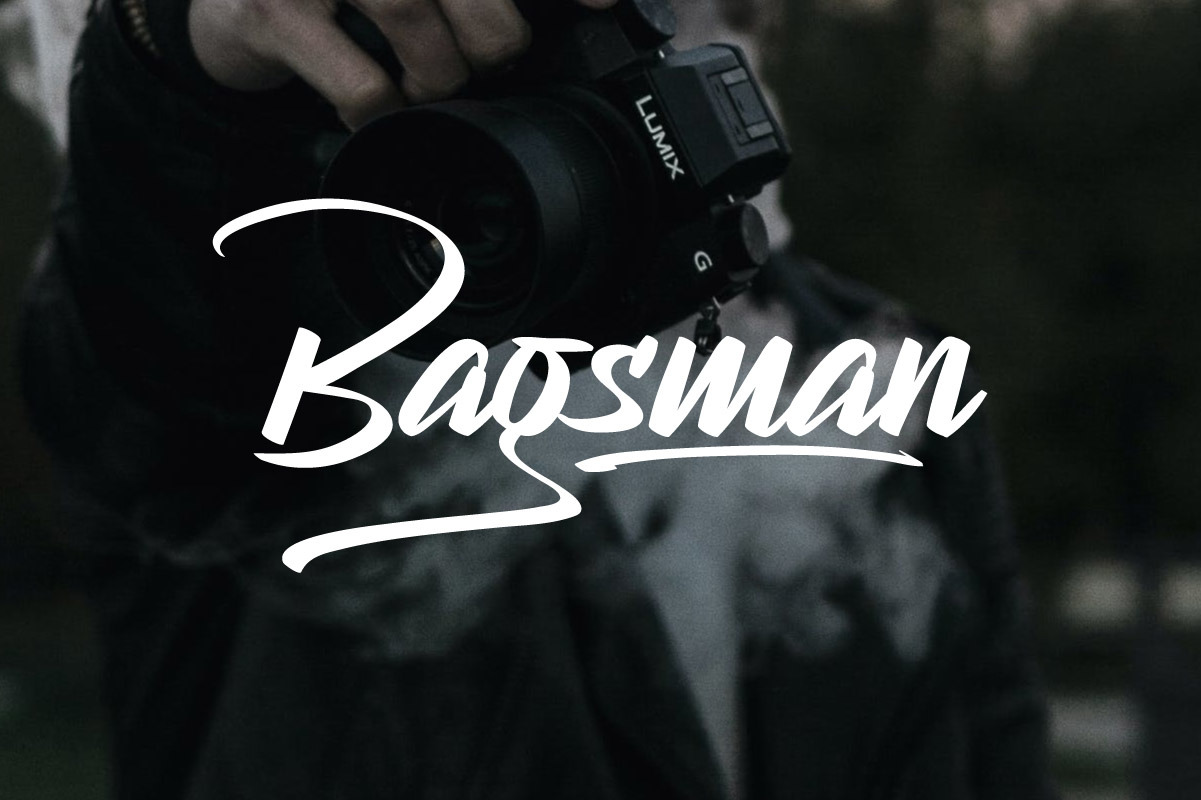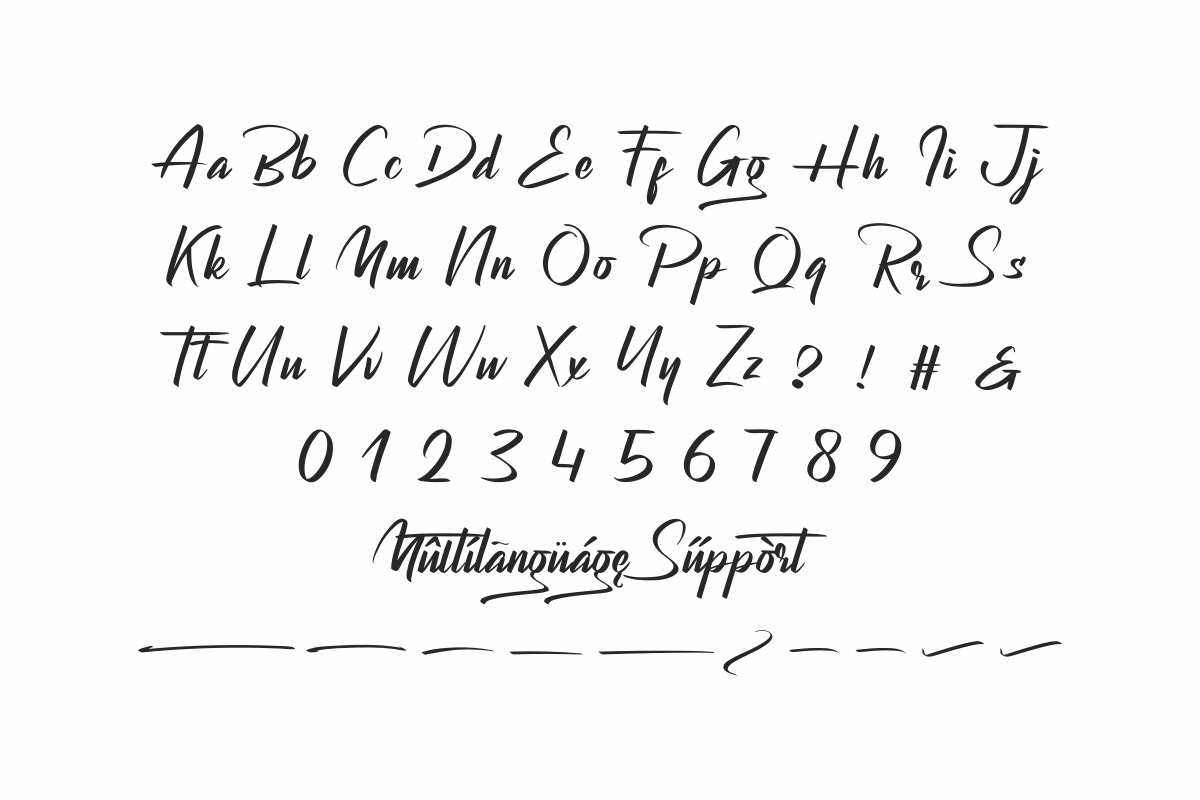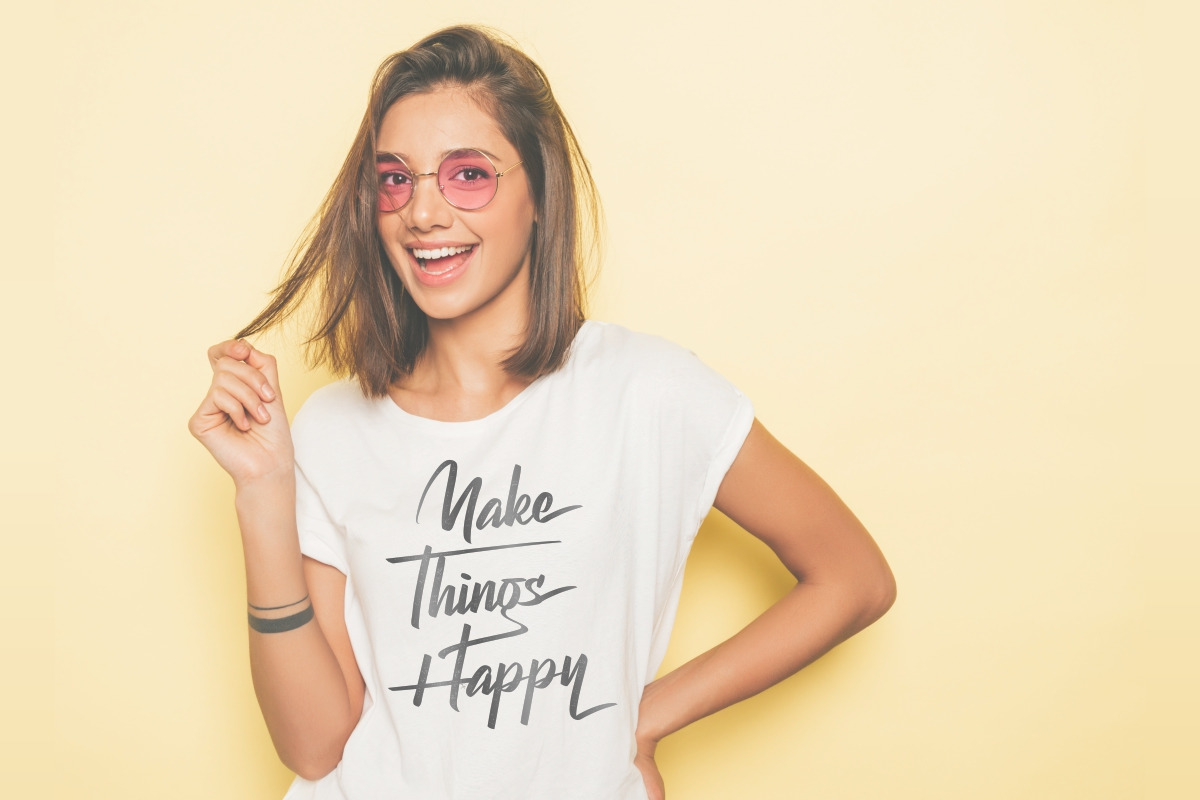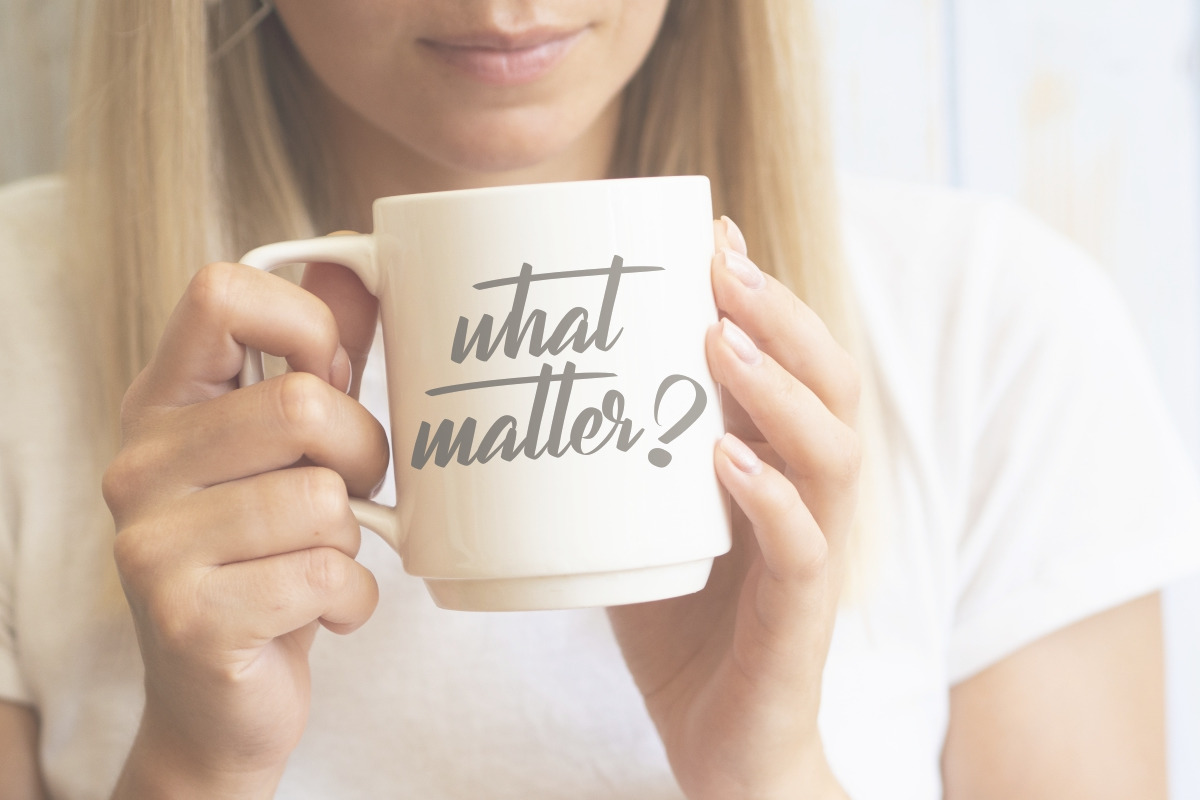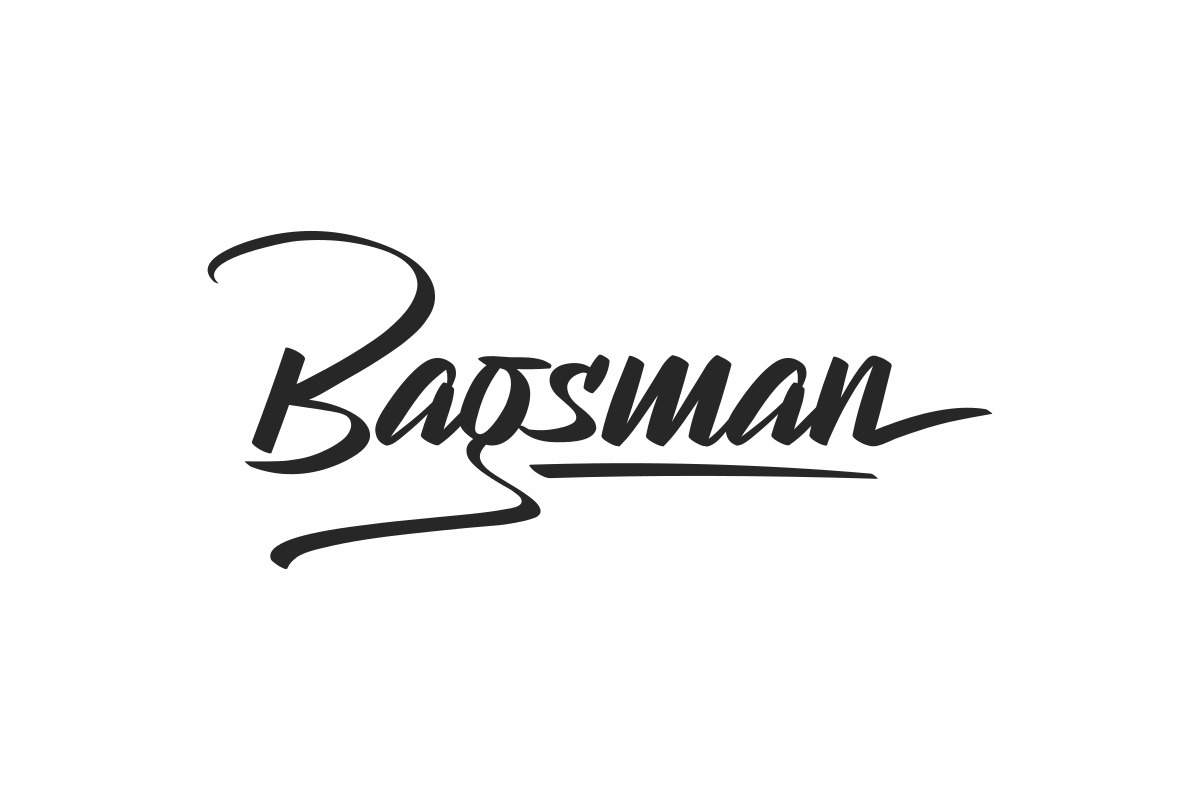
Bagsman Brush Font
Bagsman is a brush hand lettering font. Originally made in 2020 by NihStudio Font Designer : Widiyanti and Suci. On the package you will get :
The theme style of the font is elegant, luxury, glamour, gold, vintage, stylish, sophisticated and classic brush style. The font will be match for this typeface: wedding, events, real estate, architect, law firm, florist, gardening, makeup artist, travel, hotel, musician etc